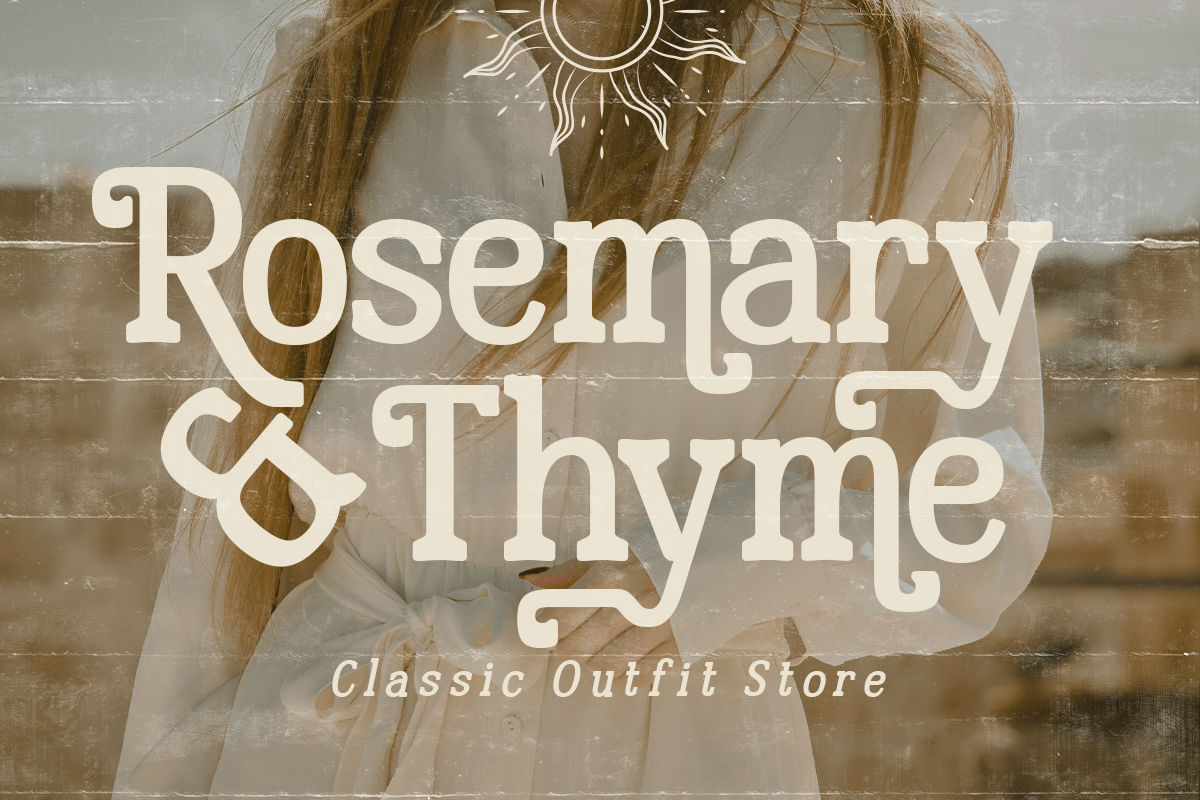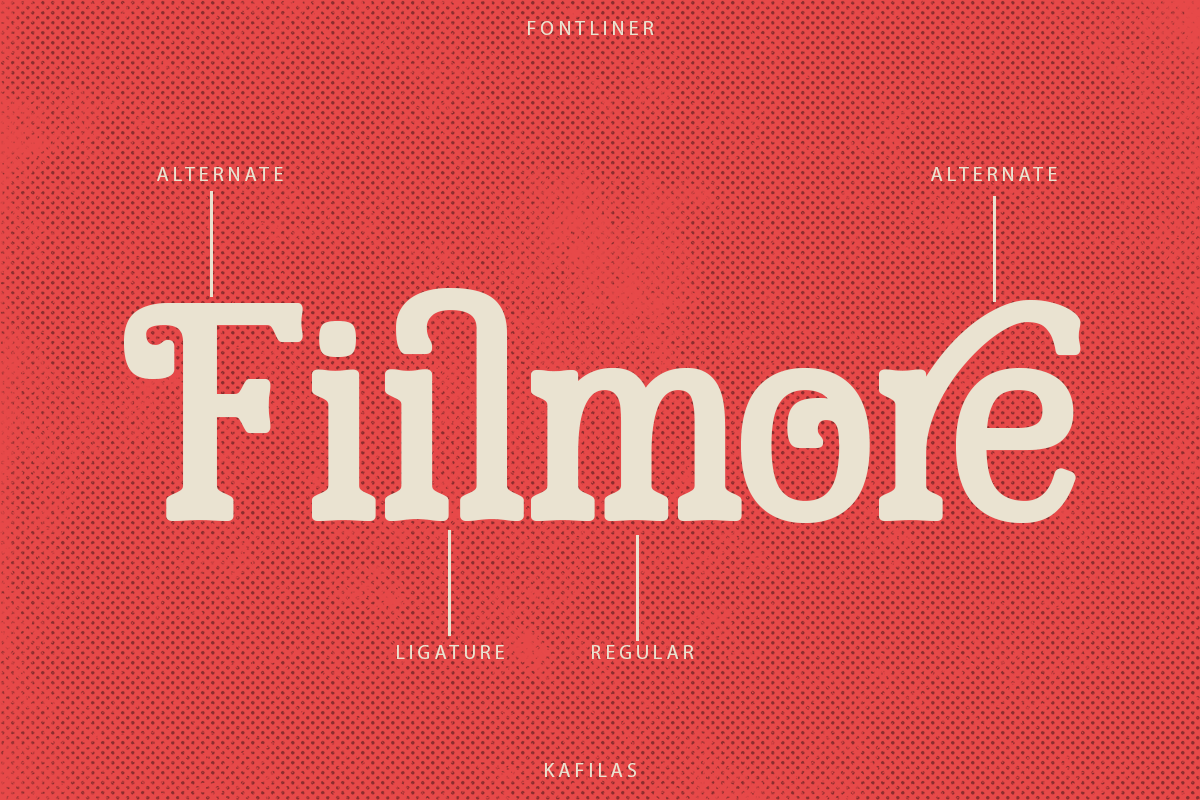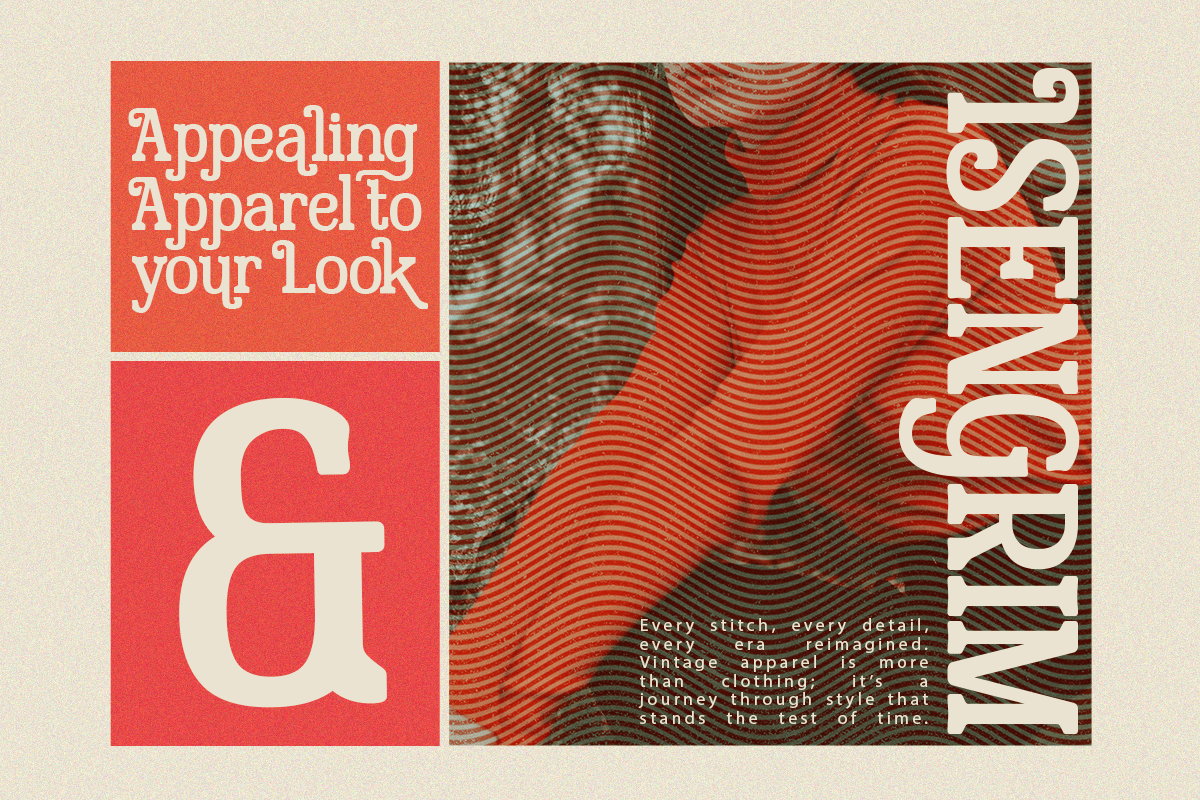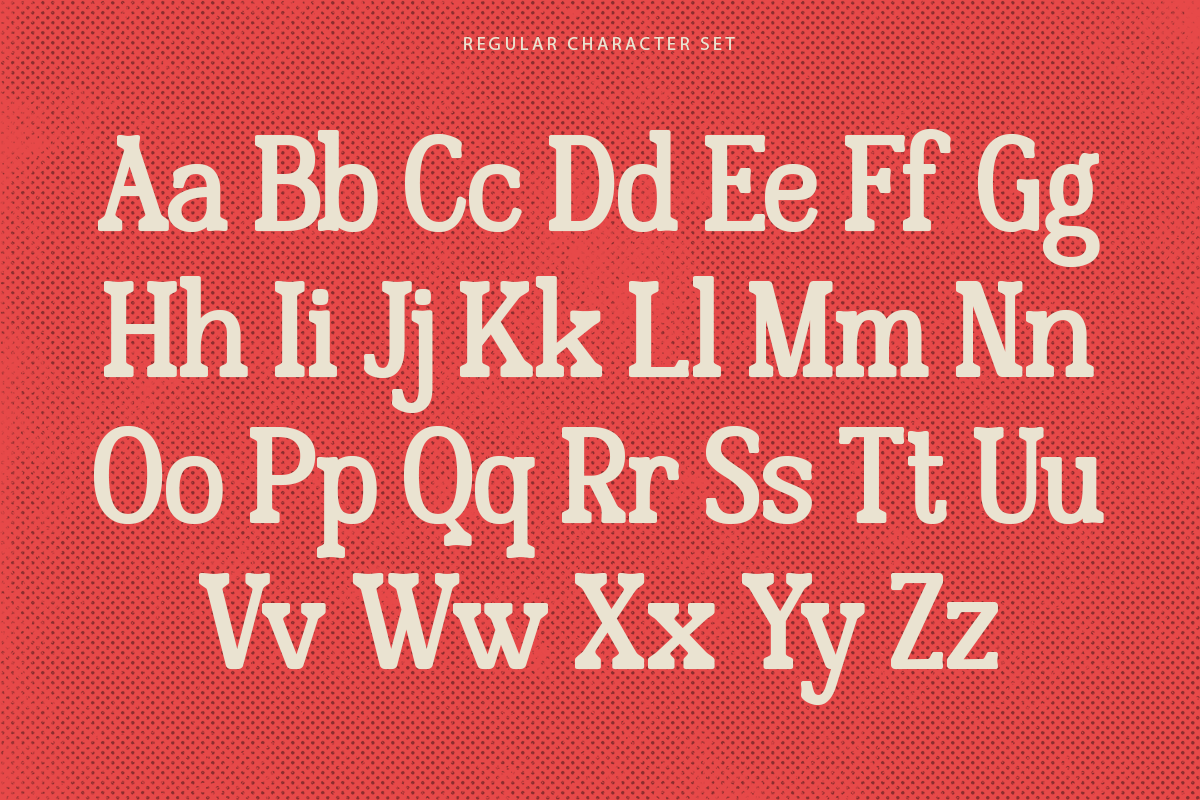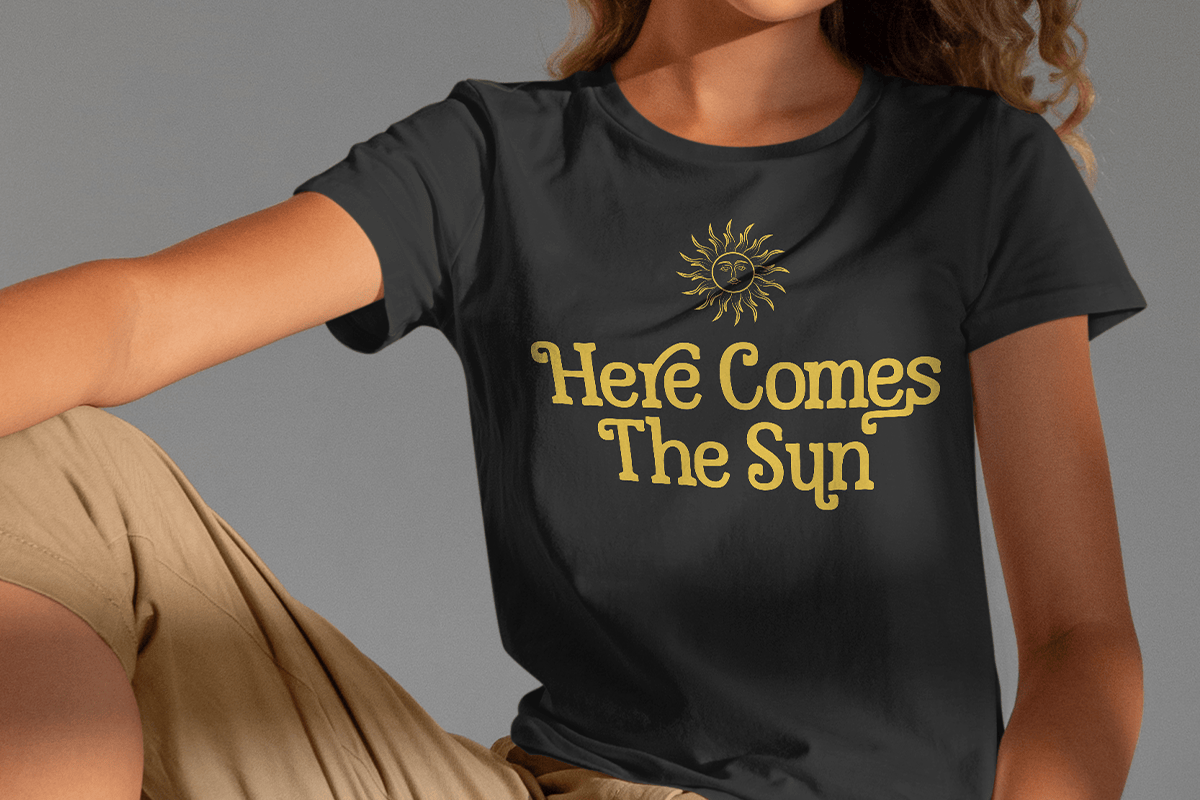
Kafilas – Retro Vintage Serif Font
Kafilas is a stylish retro serif typeface inspired by vintage print culture, nostalgic signage, and timeless editorial design. Featuring expressive curves, charming alternates, elegant ligatures, and distinctive vintage details, Kafilas delivers a warm, handcrafted personality while maintaining excellent readability. Its classic aesthetic blends retro sophistication with modern versatility, making every headline feel memorable and authentic.
Designed for branding, packaging, cafés, restaurants, beverage labels, fashion editorials, magazines, posters, logos, album covers, merchandise, invitations, artisan products, and social media, Kafilas includes uppercase, lowercase, numerals, punctuation, multilingual support, stylistic alternates, and beautiful ligatures. These OpenType features allow designers to create unique typography with a premium handcrafted appearance.
Whether you’re building a nostalgic coffee brand, designing vintage-inspired packaging, creating editorial layouts, or crafting elegant logo identities, Kafilas provides the perfect balance between classic serif beauty and contemporary creativity. Its rich character and decorative details make it an excellent choice for projects that seek warmth, authenticity, and timeless visual appeal.
– Stylistic alternates
– Uppercase, Lowercase & Ligatures